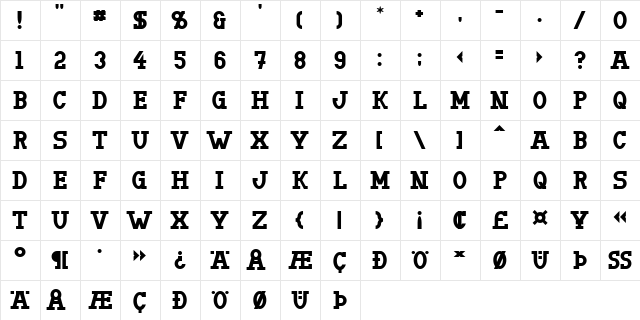
Doergon Regular
Design Context for Doergon Typeface
Doergon is a composed and adaptable typeface that performs quietly and consistently across a wide range of design contexts.